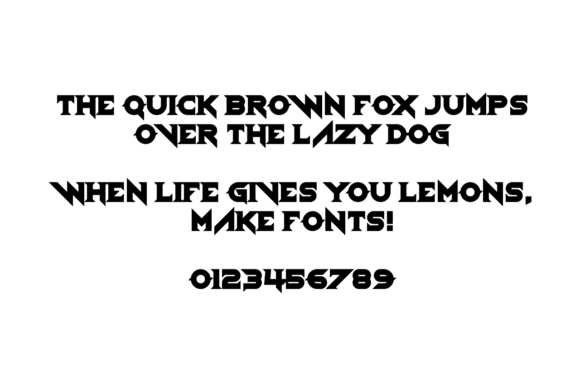
The Designer’s Delight: Unleashing the Power of Demoness Font
I still remember the frustration of working on a video game project, searching for the perfect font to capture the edgy, modern vibe I had in mind. The client’s request was simple: a font that was both gothic and techno, bold and eye-catching. I scoured the internet, tried countless fonts, but nothing seemed to fit the bill. That was until I stumbled upon the Demoness font. **It was love at first sight!** ✨
An Honest Review: The Good, the Bad, and the Quirky
What I Love About Demoness Font
- ✅ Unique and quirky design: Demoness is a true showstopper, with its spiky, gothic-inspired lines and modern-techno flair.
- ✅ Perfect for display text: This all-caps font is designed to make a statement, and it does so with confidence and style.
- ✅ Versatile and adaptable: Whether you’re working on a video game, album cover, or any other modern project, Demoness font fits right in.
- ✅ Easy to read: Despite its edgy design, the font remains surprisingly legible, even at smaller sizes.
While Demoness font is an amazing addition to any design project, it’s not without its quirks. 🤔
- ⚠️ Limited use cases for body text: Due to its bold, spiky design, Demoness font may not be the best choice for longer blocks of text.
- ⚠️ Some characters may require manual kerning: As with any font, you may need to adjust the kerning for certain character combinations to achieve optimal results.
If you love the look and feel of Demoness font, you might also enjoy these similar fonts:
- Blaziken: A bold, aggressive font with a similar gothic-techno vibe. Perfect for video games, heavy metal album covers, and edgy branding projects.
- Nebula: A futuristic, sci-fi inspired font with a similar modern-techno feel. Great for projects that require a sense of otherworldliness and mystery.
- Khrom: A dark, gothic-inspired font with a similar sense of intensity and drama. Ideal for horror-themed projects, dark fantasy stories, and bold branding initiatives.
- Abaddon: A bold, industrial font with a similar blend of gothic and techno elements. Suitable for projects that require a strong, industrial look.
The Story Behind Demoness Font
According to the font’s creators, Demoness was inspired by the fusion of gothic and industrial design elements. The goal was to create a font that was both bold and elegant, with a unique blend of classic and modern sensibilities. While the exact design process remains a mystery, it’s clear that the creators succeeded in crafting a truly one-of-a-kind font. 😊
| Font Name | Demoness Font |
| Author | Chequered Ink |
Q: What type of projects is Demoness font best suited for?
A: Demoness font is perfect for video games, album covers, and any other modern project that requires a bold, edgy look.
Q: Can I use Demoness font for body text?
A: While Demoness font is primarily designed for display text, it can be used for short blocks of body text. However, its bold design may not be ideal for longer passages.
Q: Does Demoness font support OpenType features?
A: Yes, Demoness font supports OpenType features, including glyphs, ligatures, and stylistic alternates.